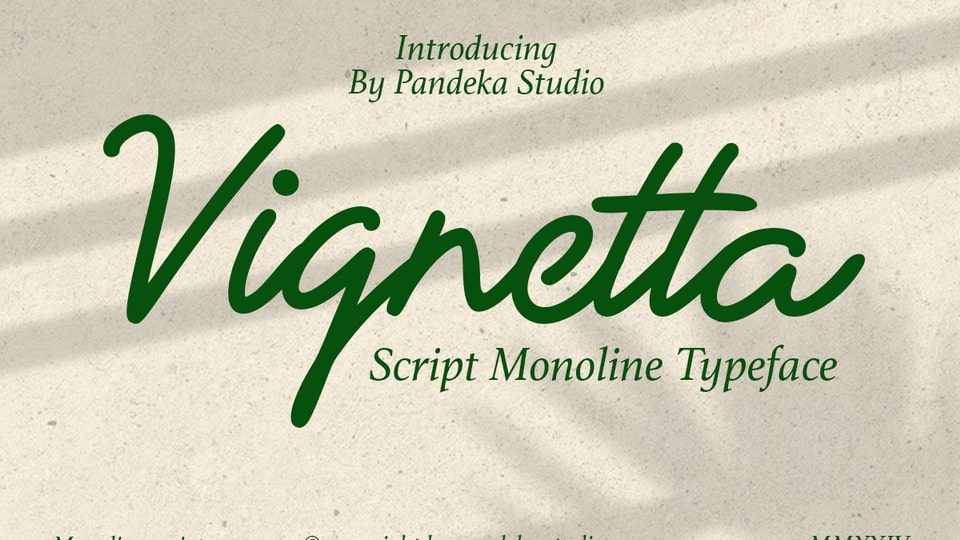
Download Vignetta font, a sophisticated handwritten typeface that exudes elegance and modernity. Perfect for elegant branding, luxury logos, modern posters.